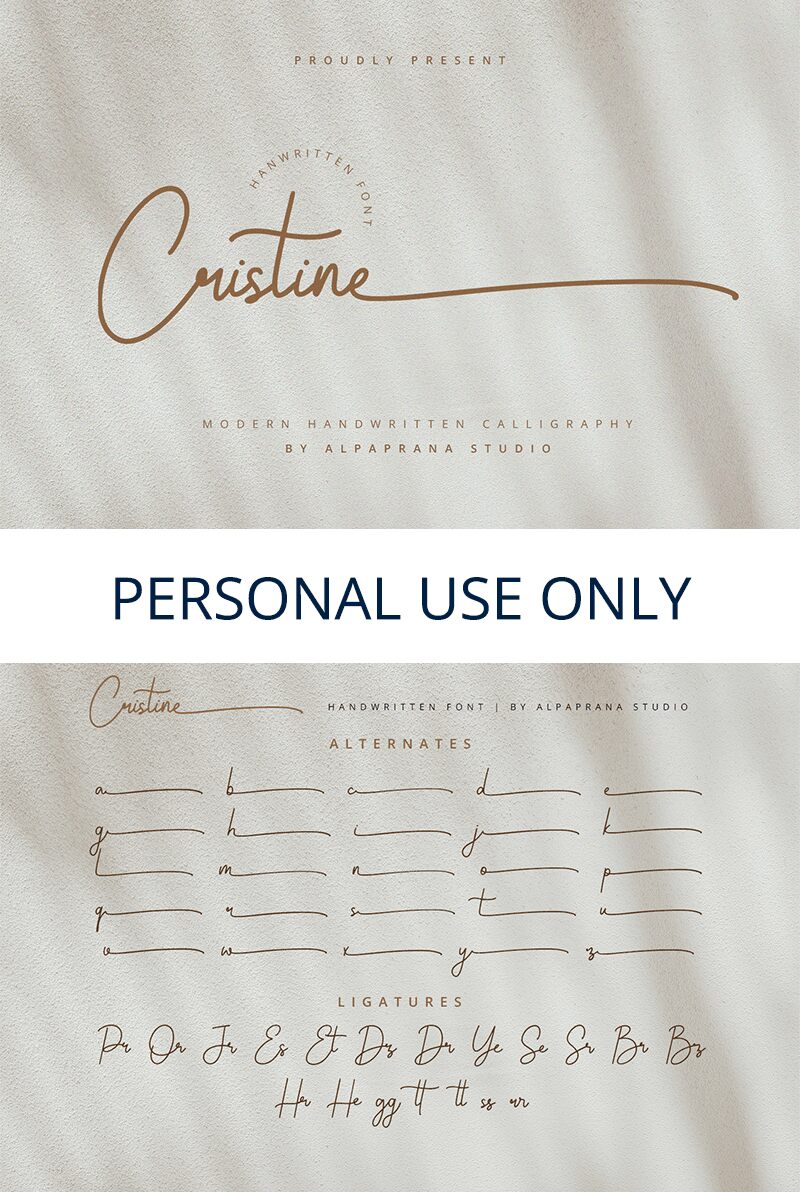
Cristine
Cristine, crafted by Alpaprana Studio, unfolds as a handwritten font that exudes a personal touch with its delicate and flowing letterforms. Its artistic strokes resemble elegant calligraphy, inviting a sense of intimacy and authenticity to any project it graces. The font's light texture imparts a sense of airiness and grace, making it an ideal choice for designs that demand subtlety and finesse.
This font finds its charm in settings such as wedding invitations, heartfelt branding materials, and sophisticated packaging. It lends itself beautifully to literary works like poetry collections or boutique book covers where the human touch is paramount. Cristine's aesthetic appeal lies in its ability to convey emotion and personality effortlessly, making it not just type on a page but a whisper of human expression captured in print.